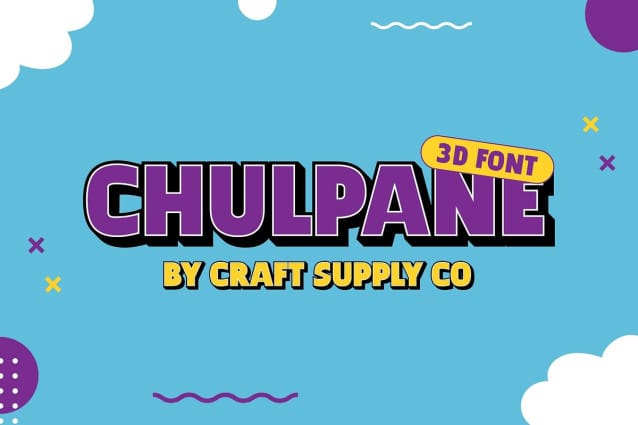
Chulpane 3D Font
Chulpane 3D Font is a bold, sans serif font designed to make a statement with its funky character and captivating 3D effect. Featuring assertive, proportionate letterforms, this font brings a lively and engaging presence to any design, perfect for standing out with a modern, fun vibe.
Visual Depth and Playful 3D Effect The unique 3D effect of Chulpane adds a sense of depth, creating an illusion of volume that enhances its energetic personality. This visual layer draws the viewer’s attention and creates an impactful impression, adding playful depth that makes each letter pop on the page.
Strong and Confident Letterforms for High Readability With its solid, full shapes, Chulpane 3D projects strength and confidence in every letter. The proportional letterforms are carefully crafted to ensure clarity and readability, making it ideal for bold headlines and display uses where attention is key.
Versatile for Creative and Contemporary Applications Chulpane 3D is perfect for creative design projects, from event posters and product branding to promotional media and social graphics. Its cheerful, modern look and engaging 3D effect make it especially suited for designs that want to stand out with a fresh, bold appeal, infusing each project with a lively, youthful energy.